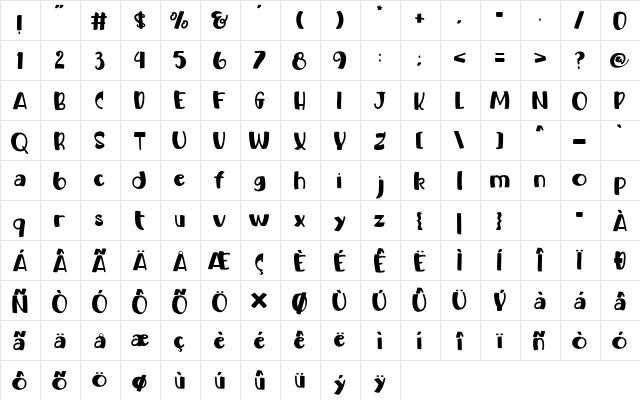
ELEPHANT WHILD Regular Font Preview
ELEPHANT WHILD Regular
ELEPHANT WHILD Regular Font Details
| Designer | Jujungag 2020 |
Design Context for ELEPHANT WHILD Typeface
ELEPHANT WHILD is a composed and adaptable typeface that performs quietly and consistently across a wide range of design contexts.